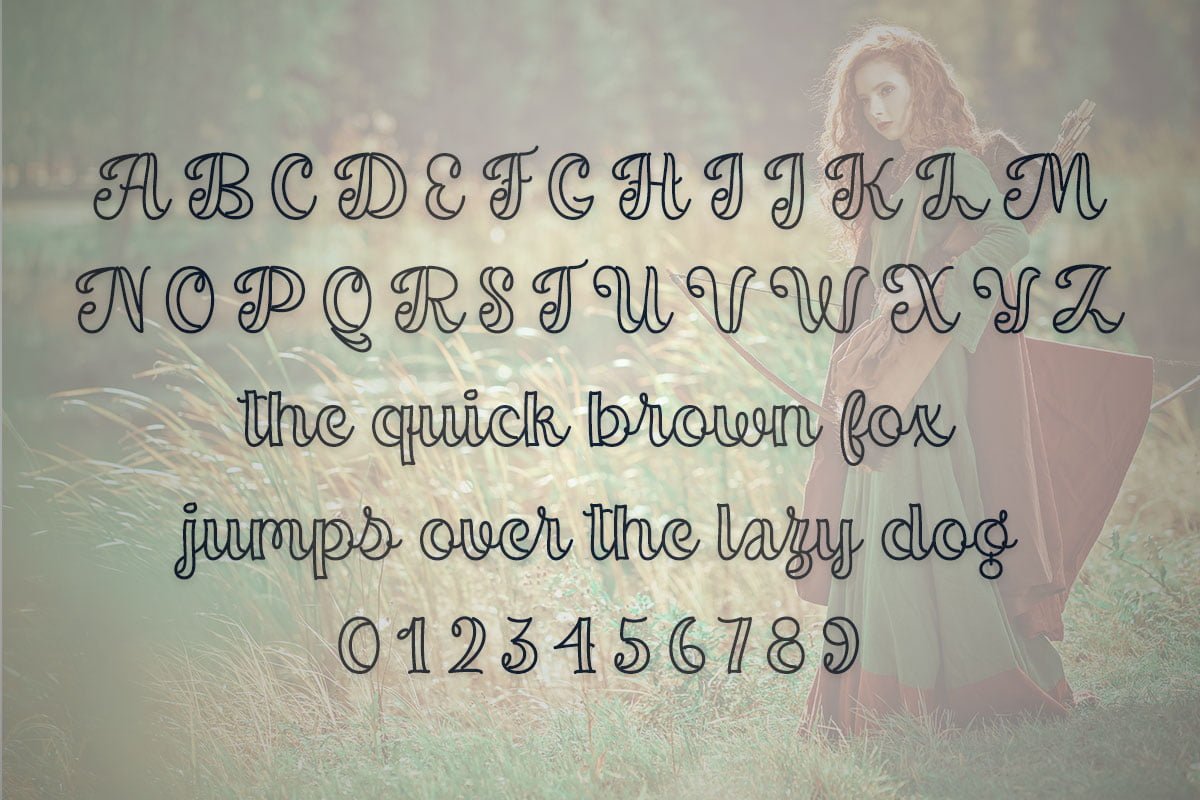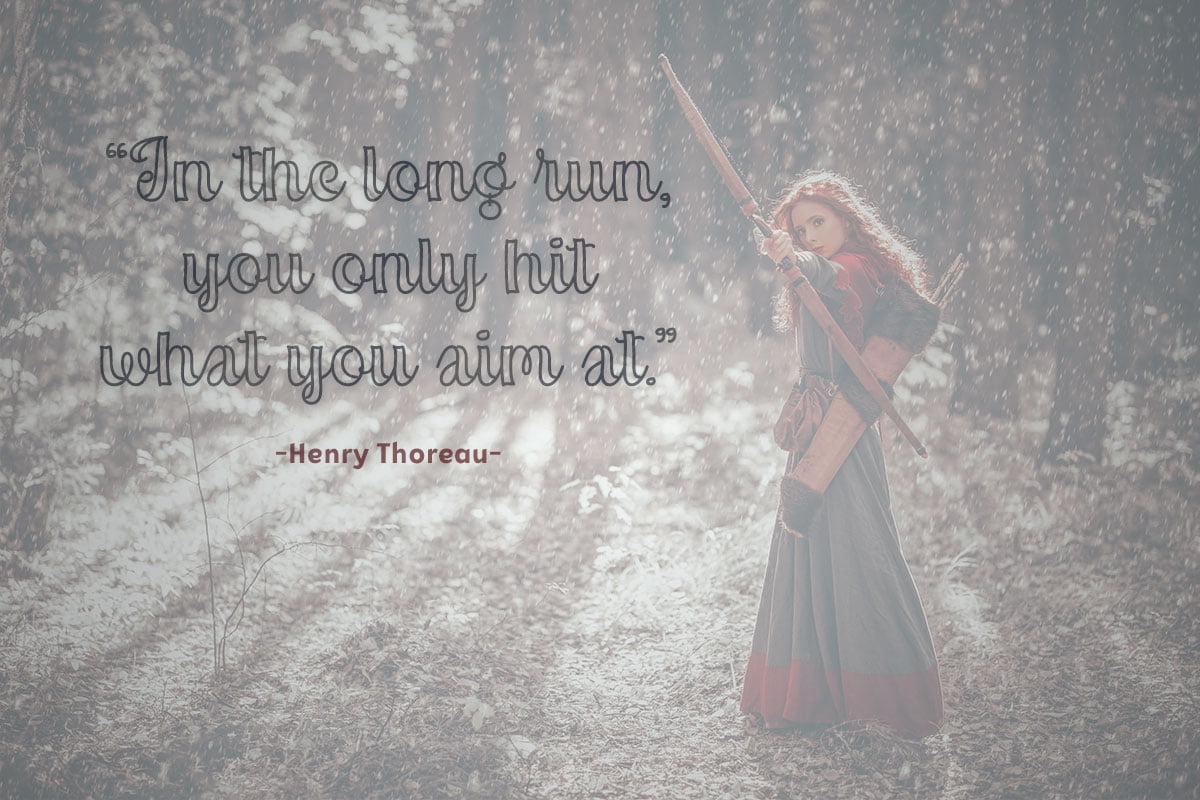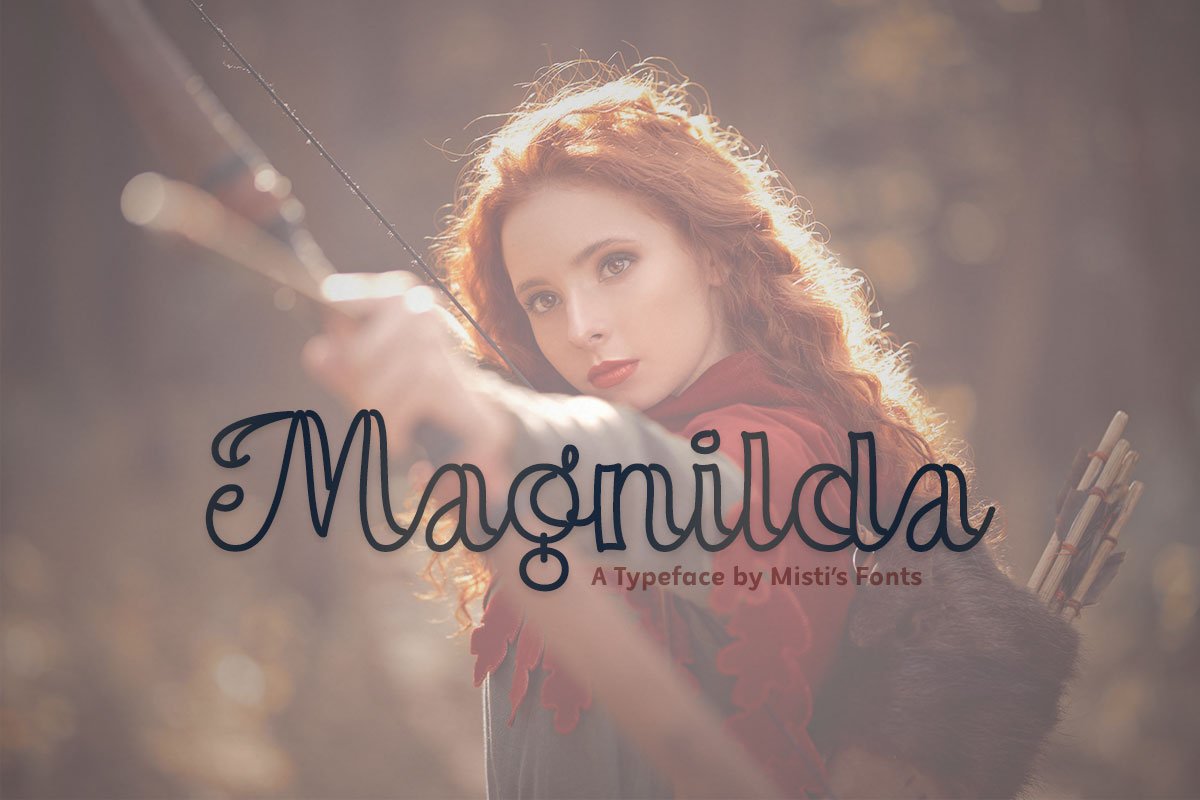
Magnilda
Magnilda is a delicate and elegant script font, with a unique feel and a stunning impact. It will add a luxury spark to any design project that you wish to create!